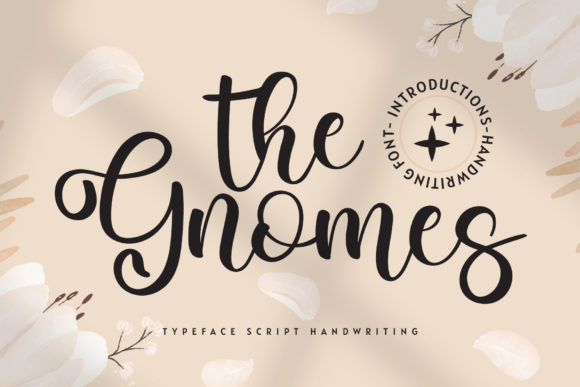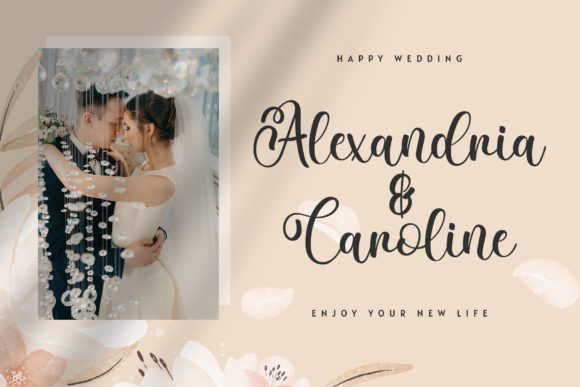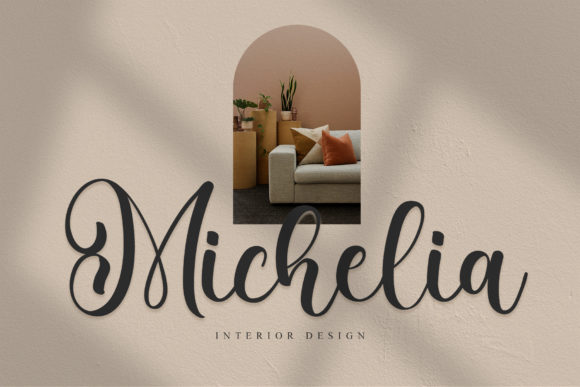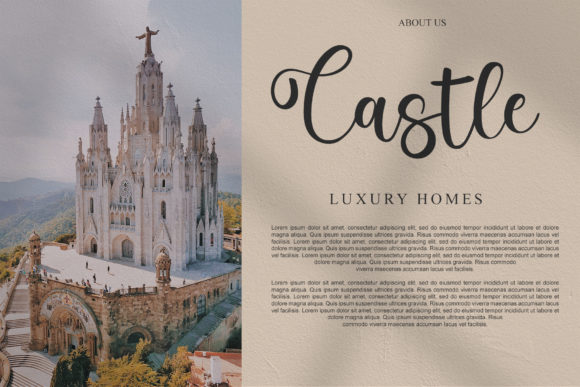
About The Gnomes Font
The Gnomes is a festive and sweet calligraphy typeface with characters that dance along the baseline. It will add a luxury spark to any design project that you wish to create!